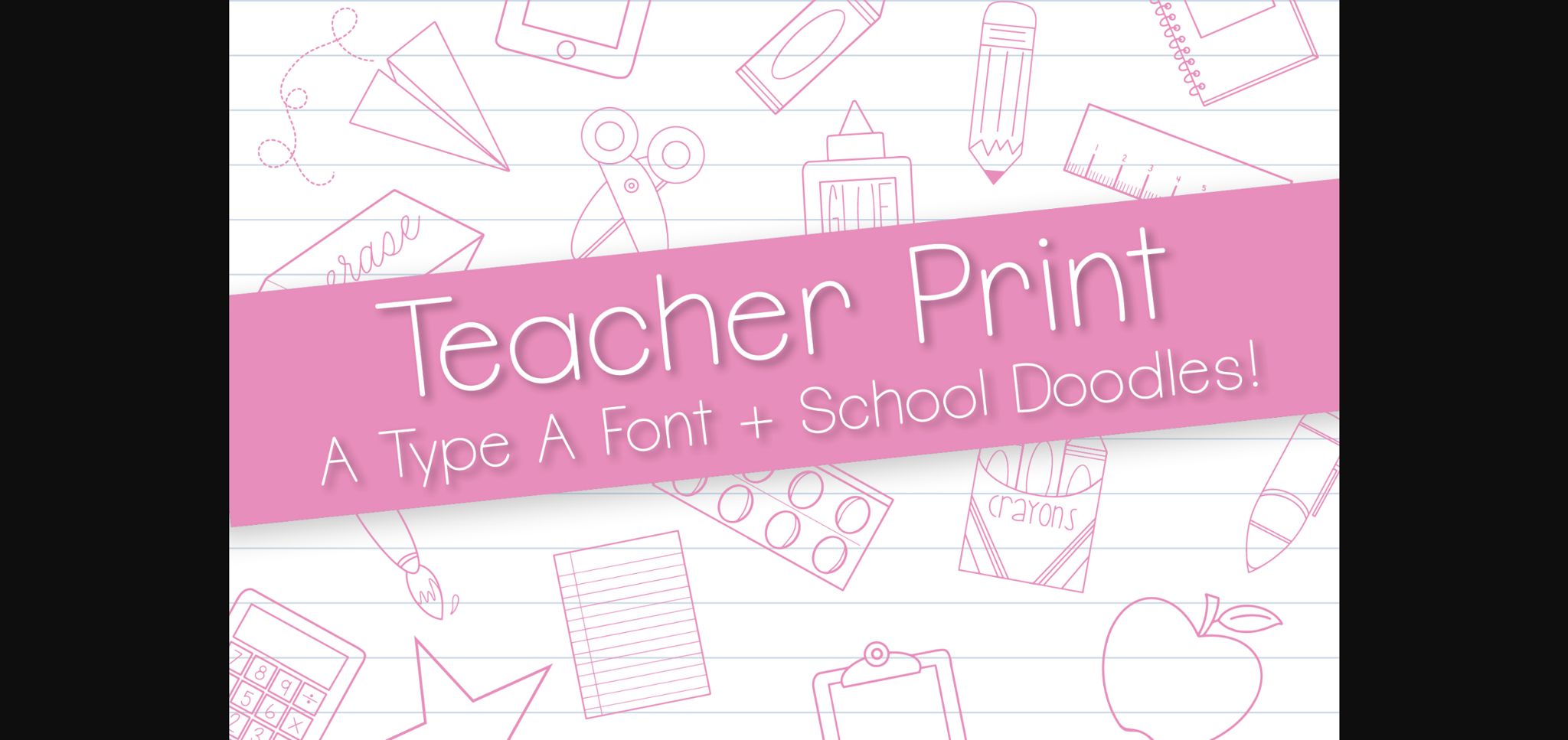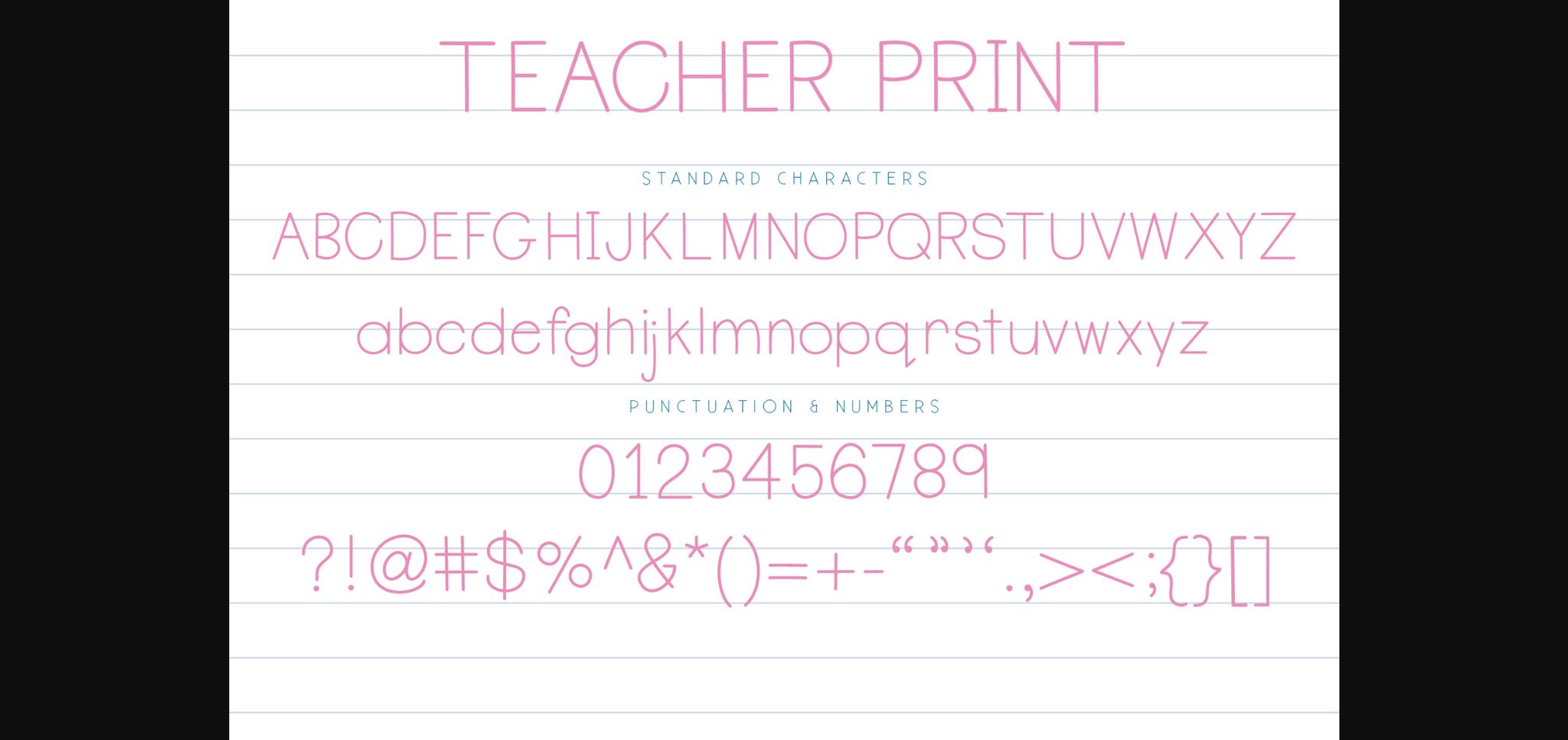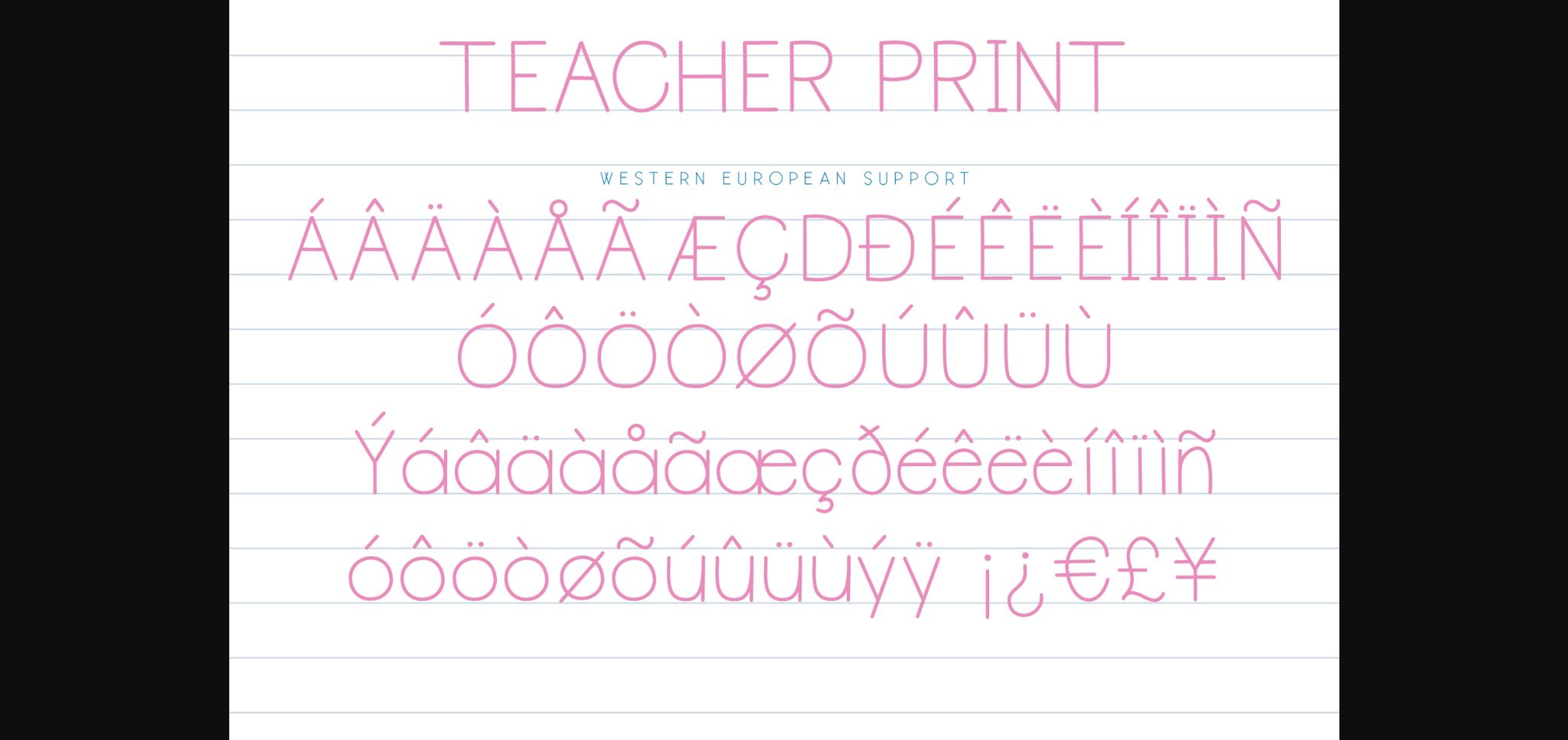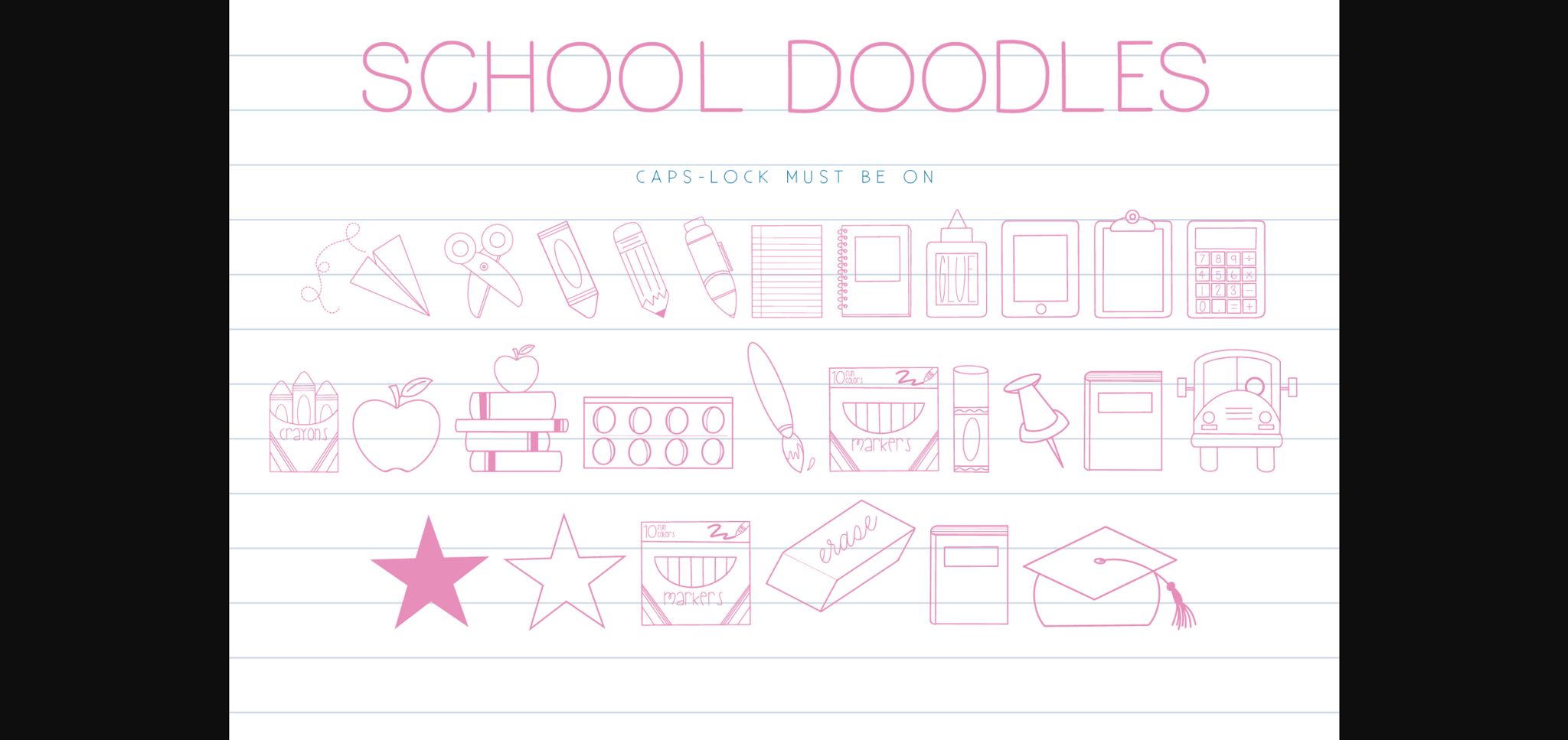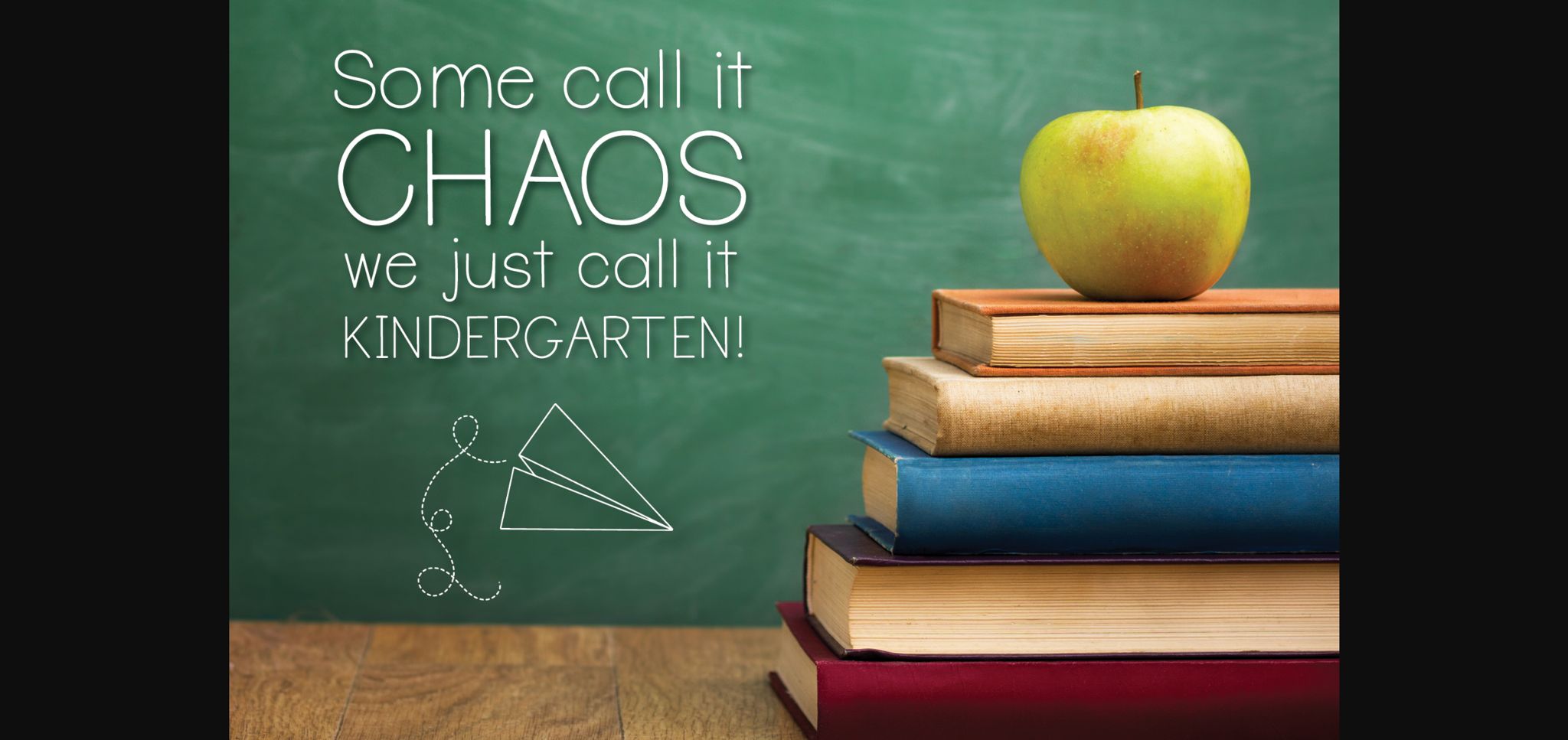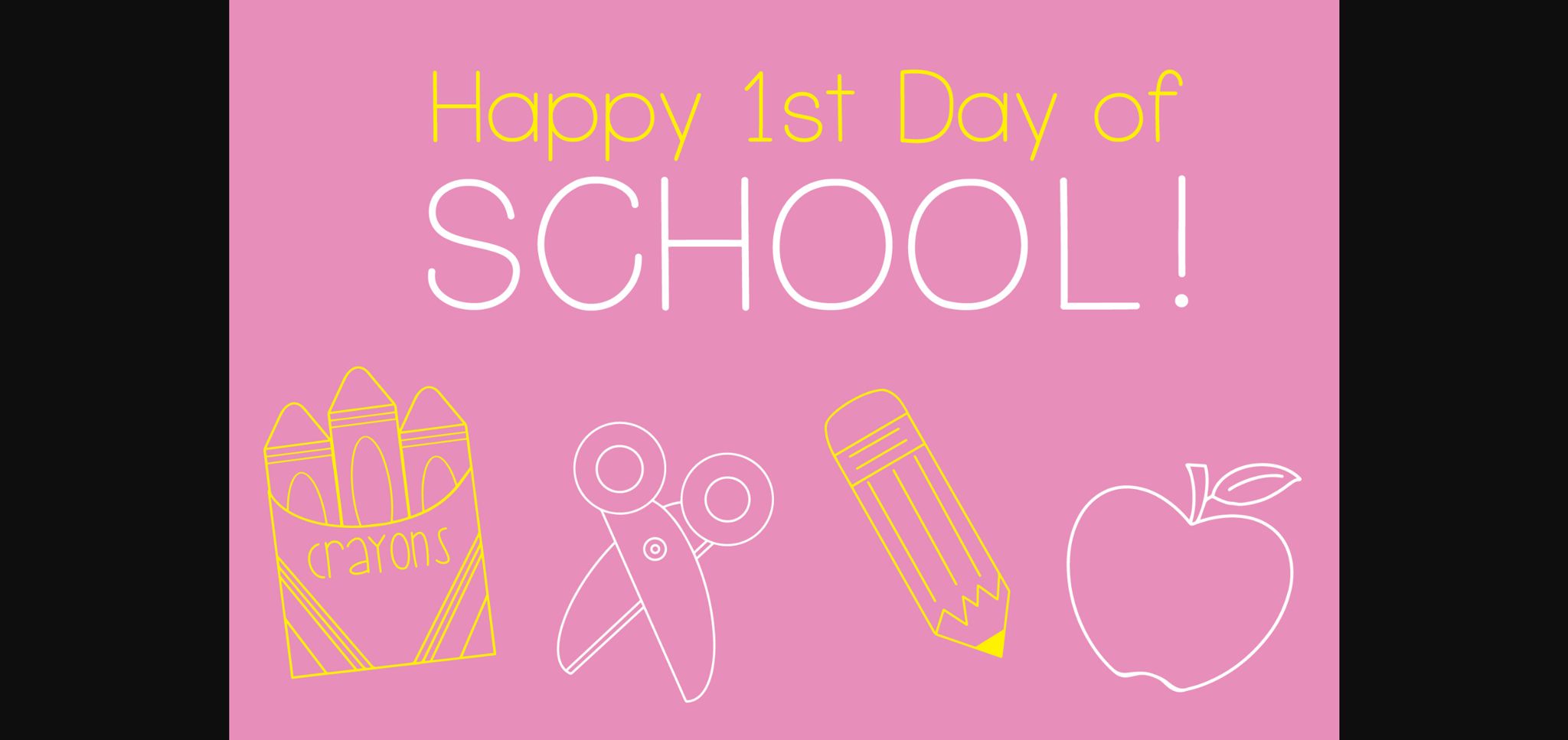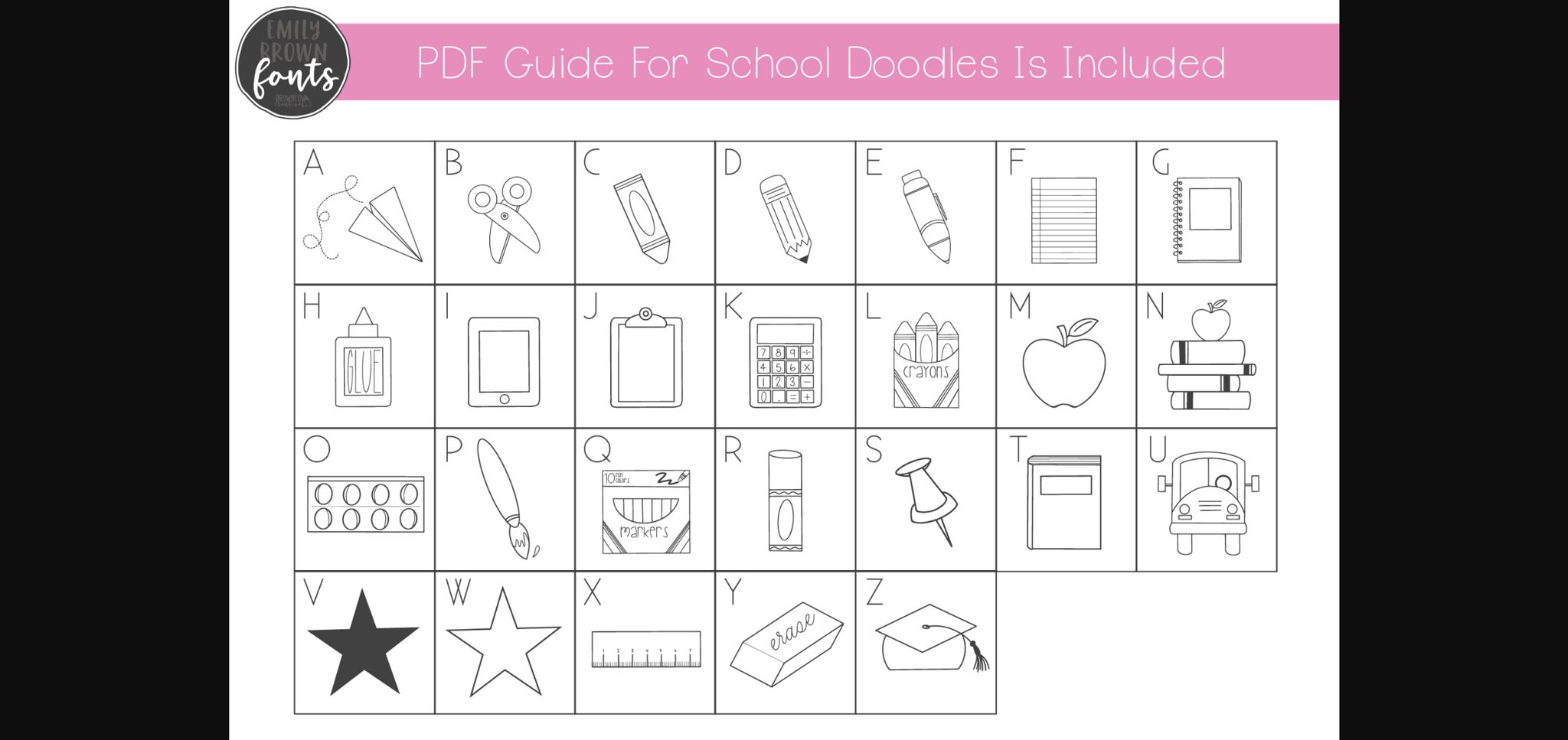
HomeSans Serif FontsTeacher Print Font Sans Serif Fonts Teacher Print Font FacebookXPinterestWhatsApp 1 of 9 ... Teacher Print Font Poster 2... Teacher Print Font Poster 3... Teacher Print Font Poster 4... Teacher Print Font Poster 5... Teacher Print Font Poster 6... Teacher Print Font Poster 7... Teacher Print Font Poster 8... Teacher Print Font Poster 9... About Teacher Print Font Teacher Print is beautiful and incredibly neat sans serif font. It is the perfect choice for a wide variety of designs, and is particularly adept for creating teaching material. DOWNLOAD NOW People also explored Witch Font Shantana Christmas Monogram Font Cleodays Font Honey Font Coinage Caps School Font Sennin Font Ocean Waves Font Abidea Font 288 0 TagsTeacher Print Font Previous articleJohn Beer FontNext articleDelvon Thin Font LEAVE A REPLY Cancel reply Comment: Please enter your comment! Name:* Please enter your name here Email:* You have entered an incorrect email address! Please enter your email address here Website: Save my name, email, and website in this browser for the next time I comment. Personal Use Free Summer Pisces Personal Use Free Read more about this font Sushi Stroke Personal Use Free Read more about this font The Kingdom Personal Use Free Read more about this font Glosery Personal Use Free Read more about this font BLOG Fonts That Capture the Spirit of New York City New York City is more than just a place—it’s an experience, a rhythm, a visual language... To increase your work productivity, choose the most readable fonts. How to Cut Any Font on Cricut: Convert a Font to SVG (Free) 5 Fonts That Will Dominate Design Trends in 2026